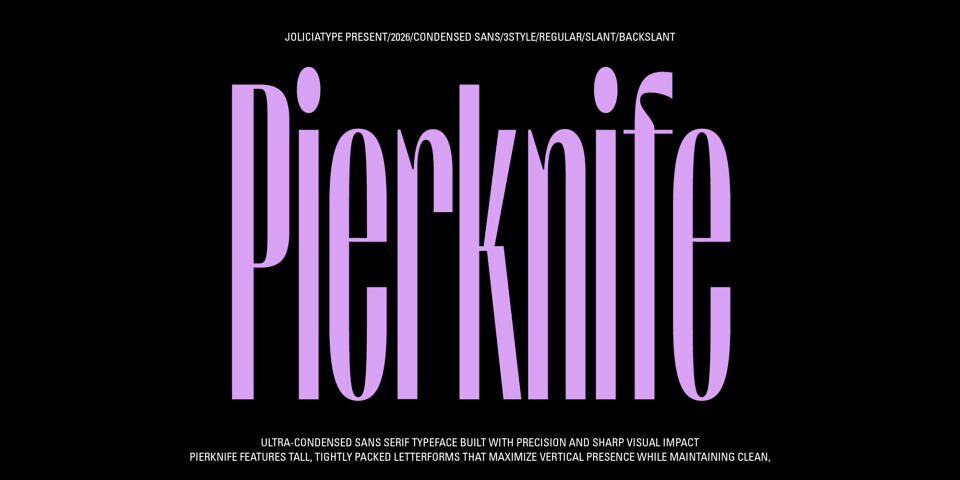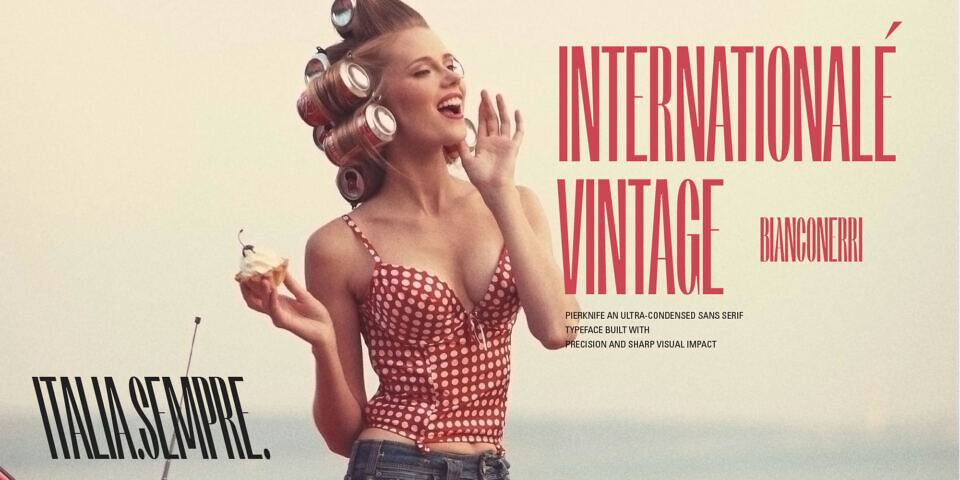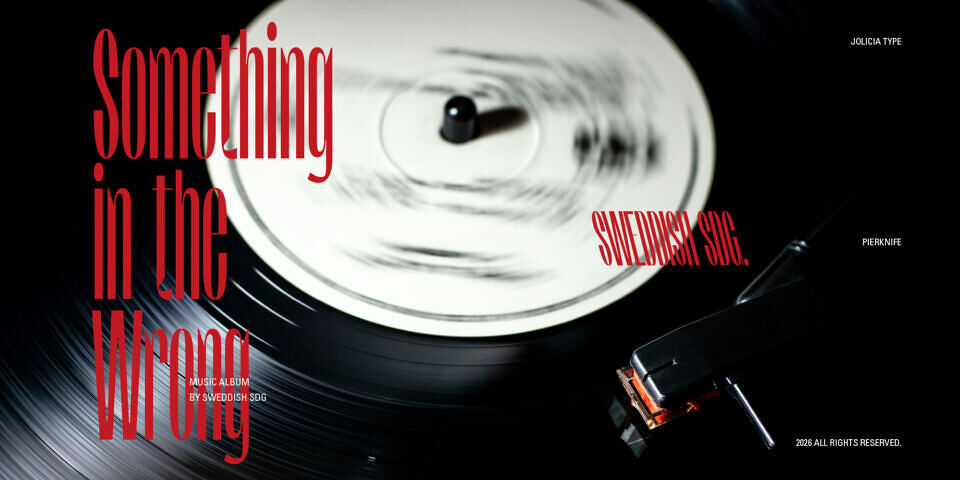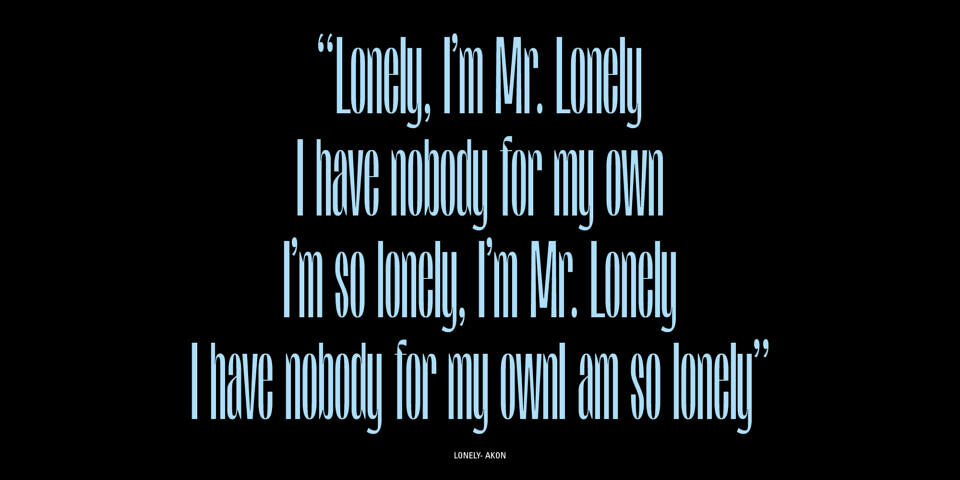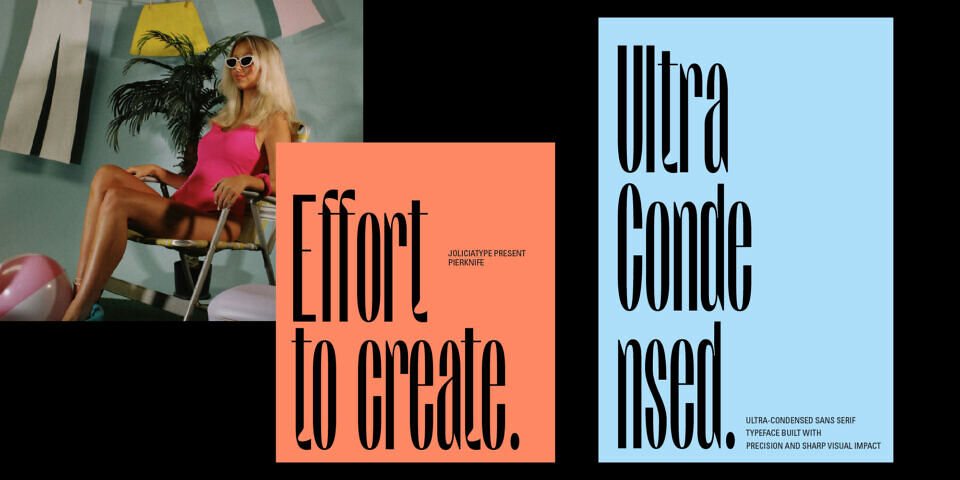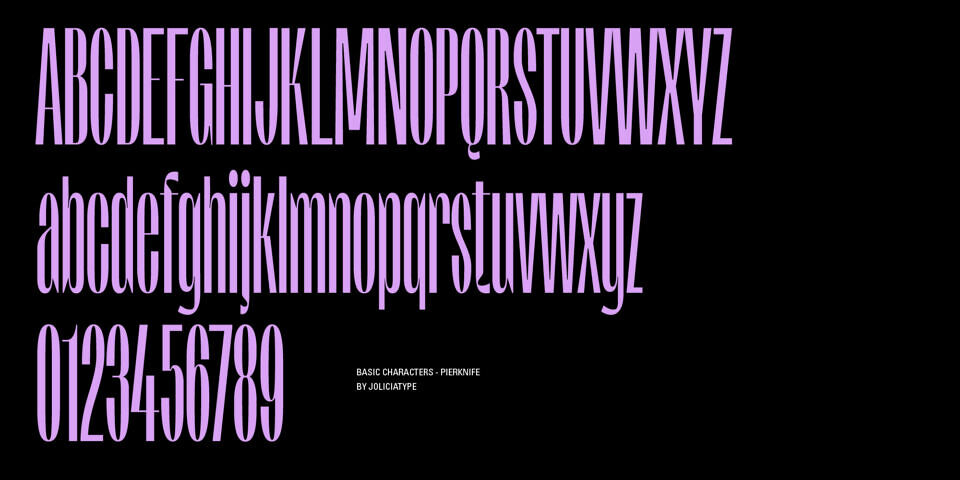
Pierknife is a thin ultra-condensed sans serif typeface that balances sharp modern precision with subtle vintage character. Designed with tall, narrow proportions and a clean structural rhythm, it delivers a sleek contemporary presence while remaining adaptable to retro-inspired compositions.
Ideal for headlines, branding, editorial design, posters, packaging, and visual identities that demand a tall, striking typographic voice, Pierknife is not just ultra-condensed. it’s versatile, character-driven, and stylistically adaptable across eras.